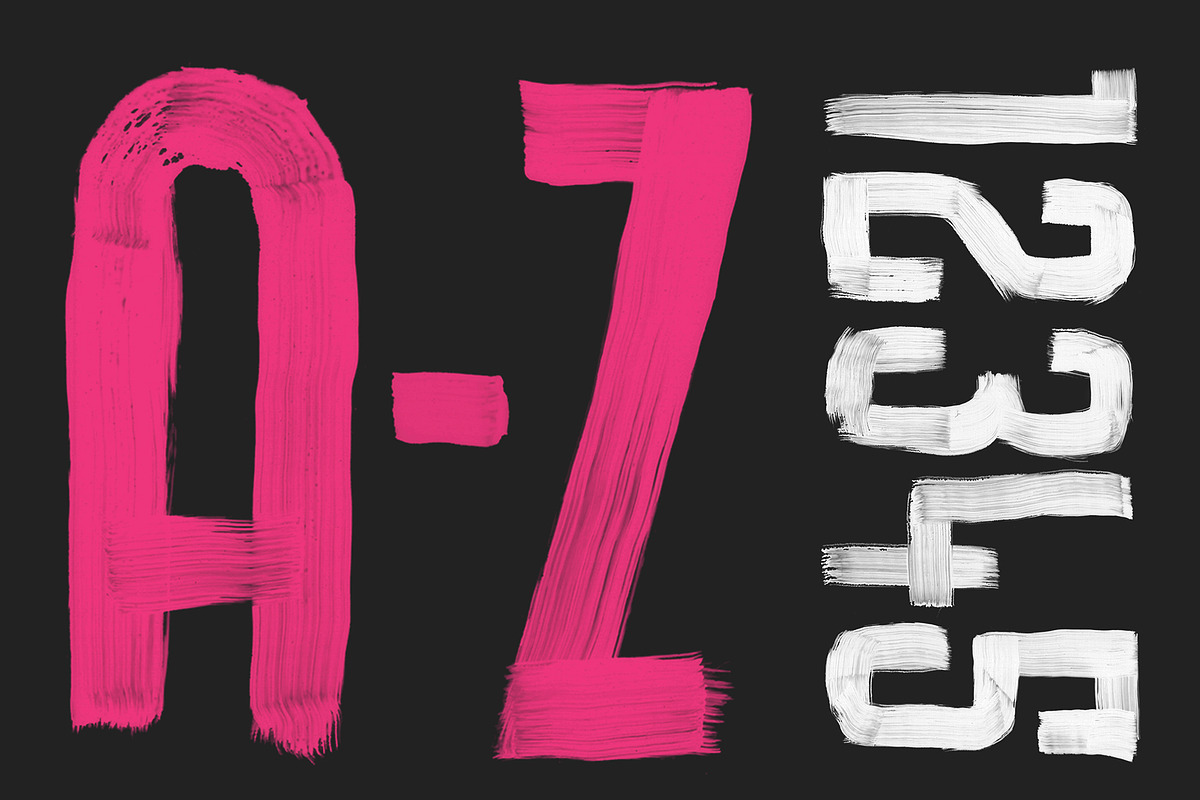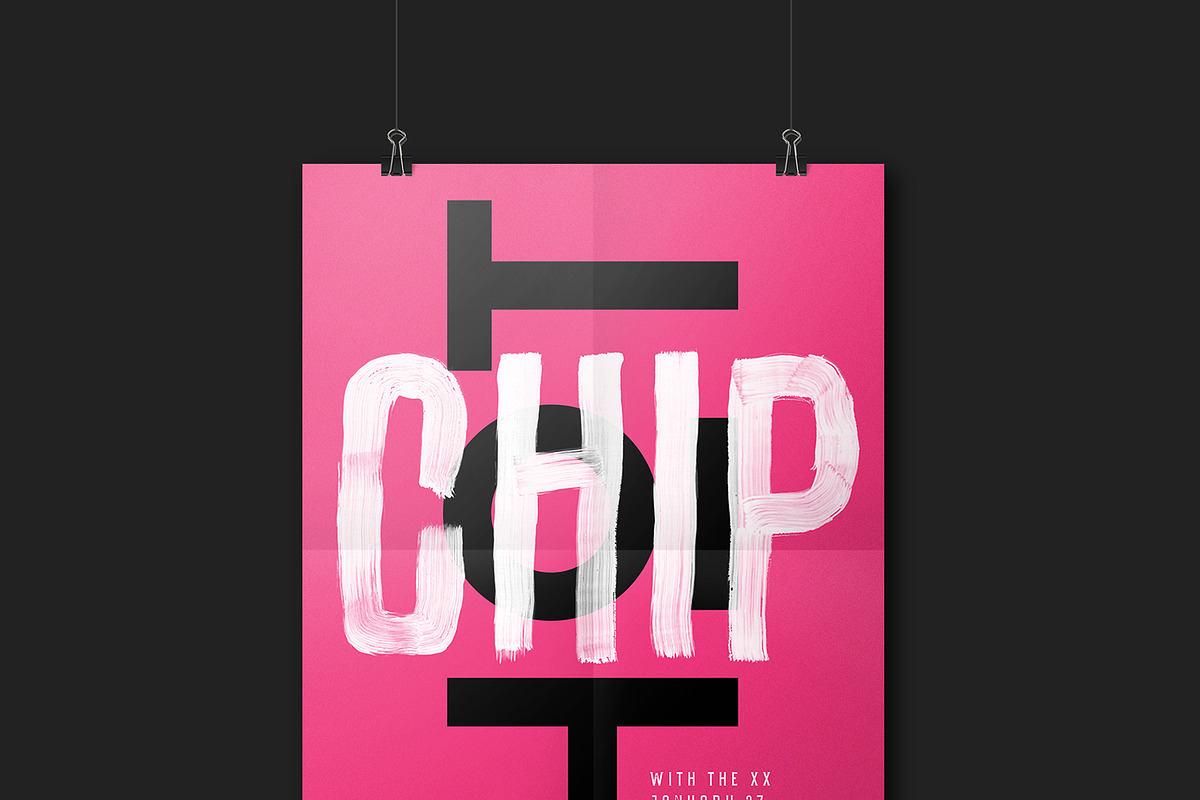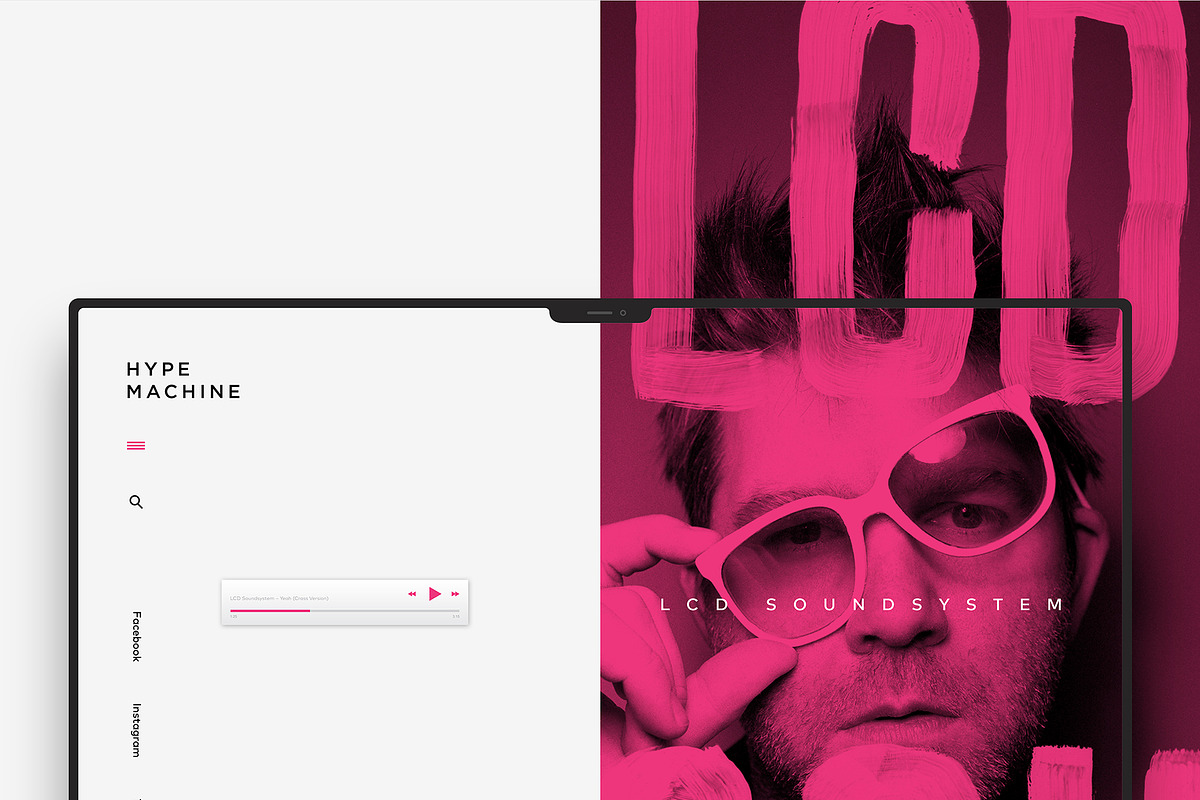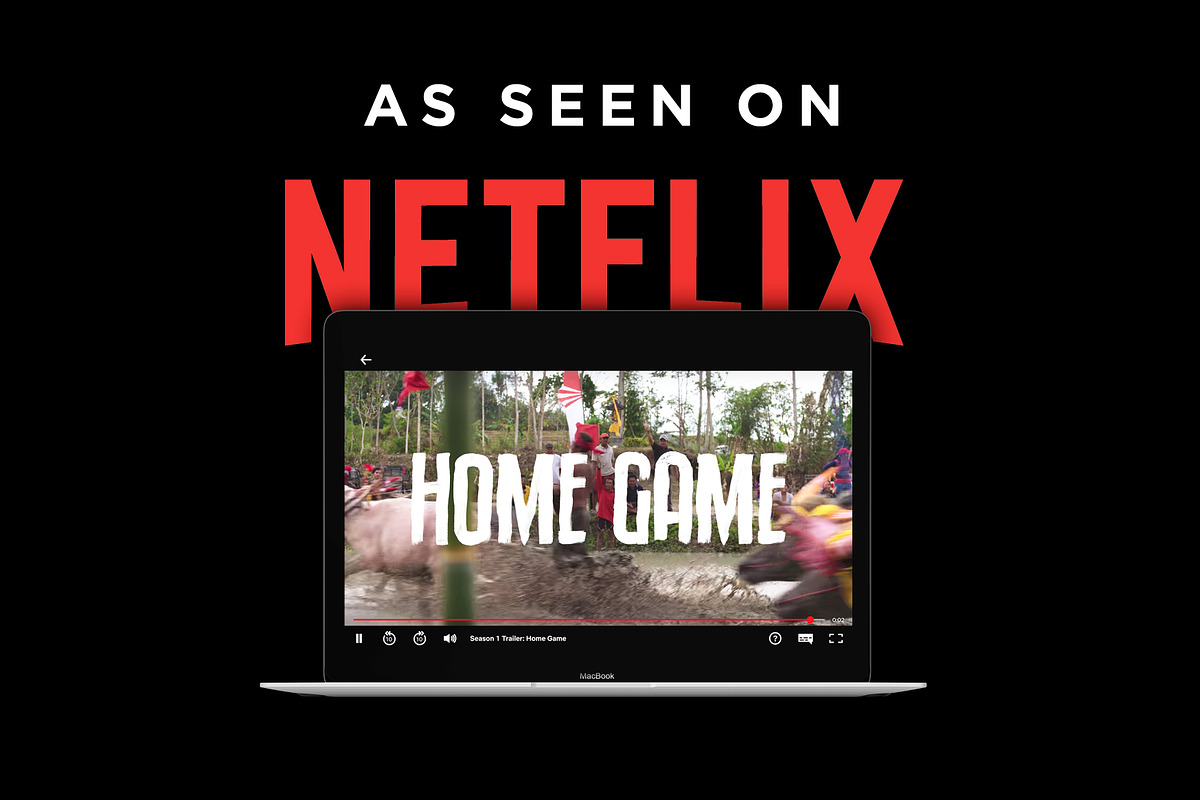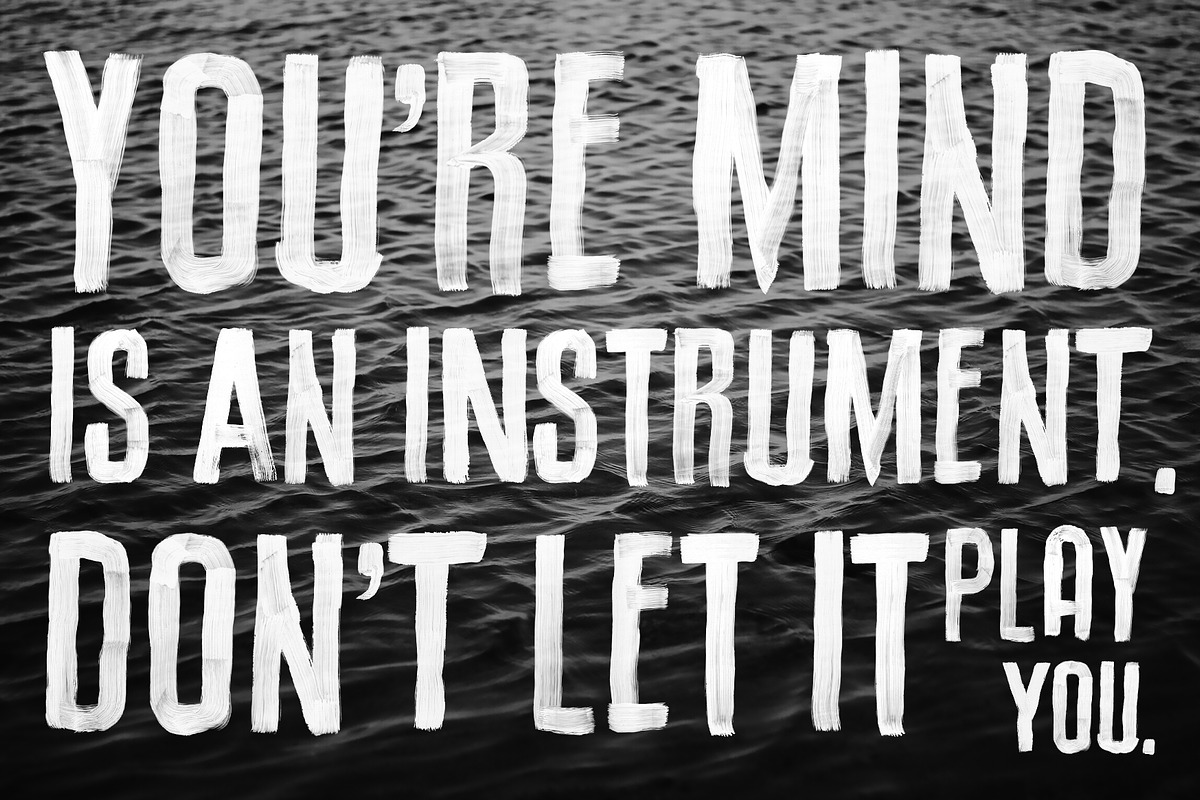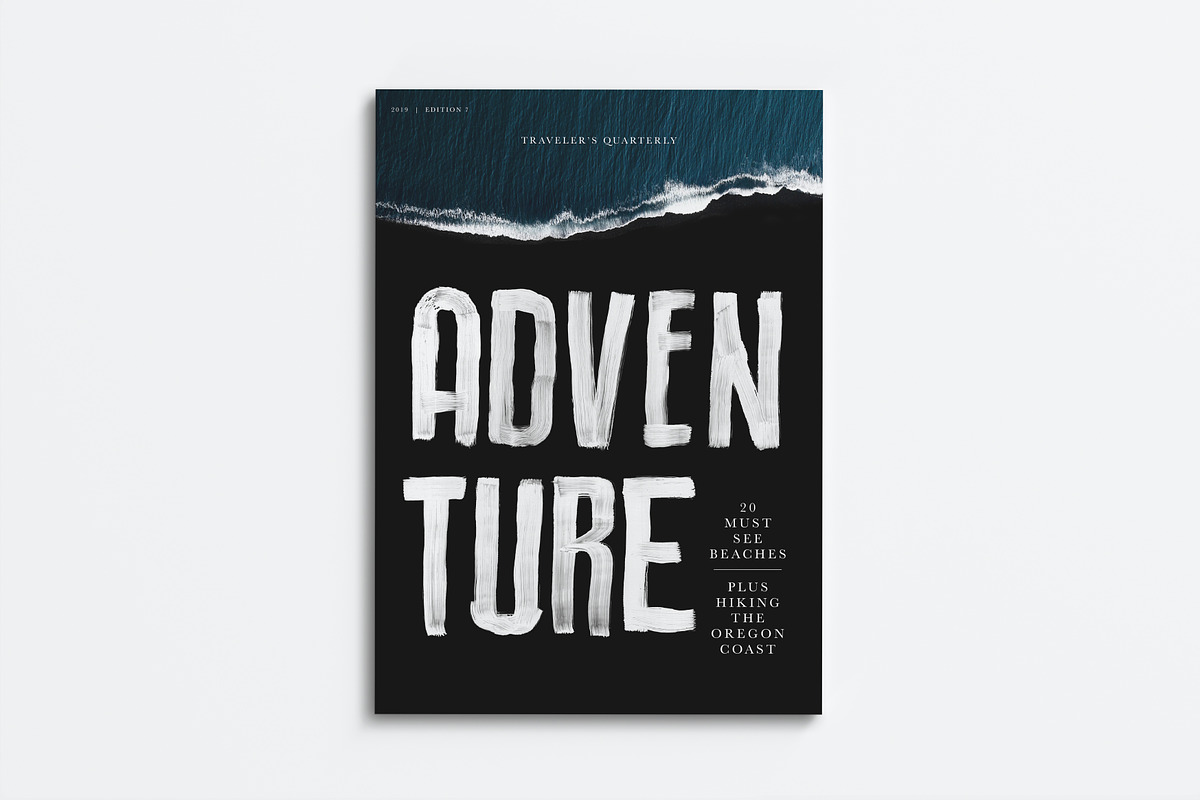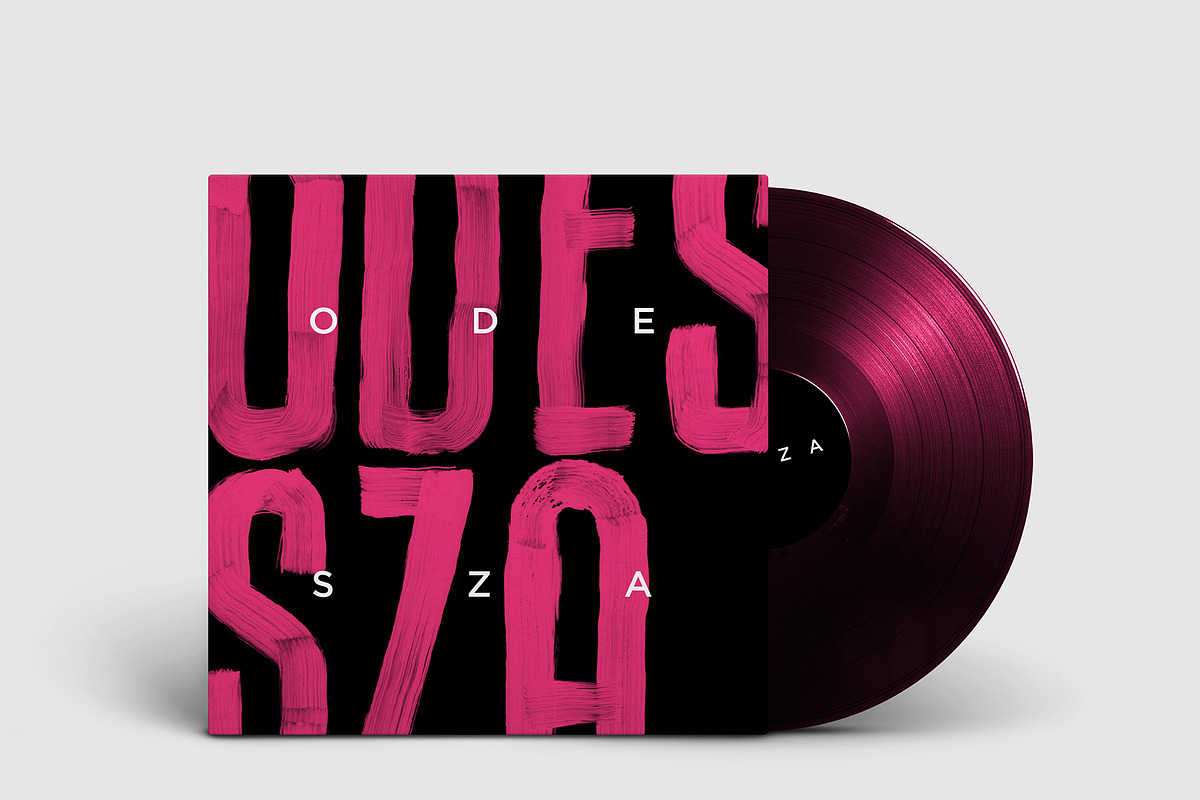
Mr. Poster - SVG Brush Font
Introducing, Mr. Poster — a hand painted brush font that captures all the rich stroke imperfections of an authentic, illustrated typeface. Made using acrylic paint on transparency, its unique characteristics lend itself to bold, punchy type treatments. Great for projects that are looking to achieve a realistic, hand painted feel.
- A-Z upper and lowercase
- numbers
- punctuation
- extra characters (no alternates)
- alternate letters & numbers for a more realistic look